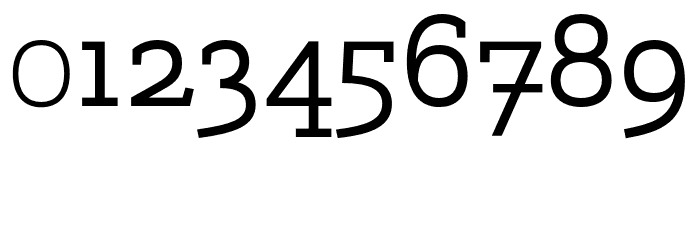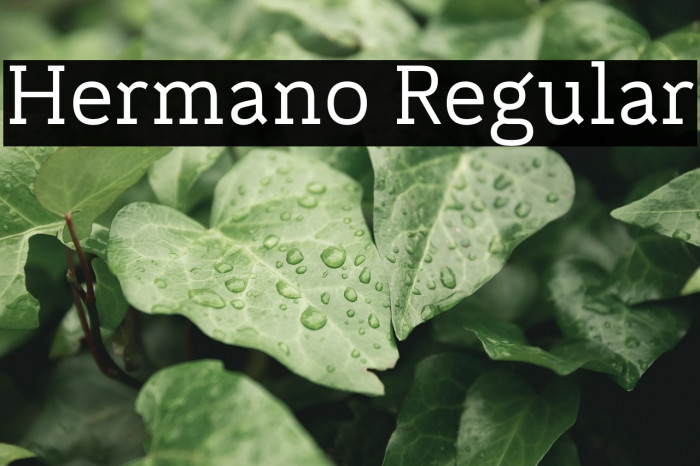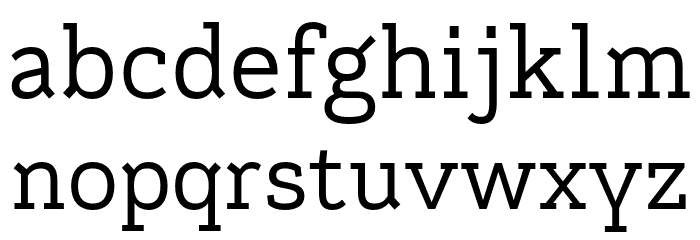
Hermano Regular Font
Hermano Regular Description
This font exhibits a clean and modern aesthetic with a touch of classic elegance. The characters are well-proportioned, featuring a balanced mix of thick and thin strokes that provide a medium contrast. The serifs are subtle yet distinct, adding a traditional feel without overwhelming the overall design. The uppercase letters are bold and commanding, while the lowercase letters maintain a friendly and approachable appearance. The numerals are clear and legible, making them suitable for various applications. The special characters are designed with the same attention to detail, ensuring consistency across the typeface.
| Use Case | Headlines, Body text, Logos |
| Proposed Projects | Ideal for editorial design, branding, and print materials where a classic yet contemporary look is desired. |